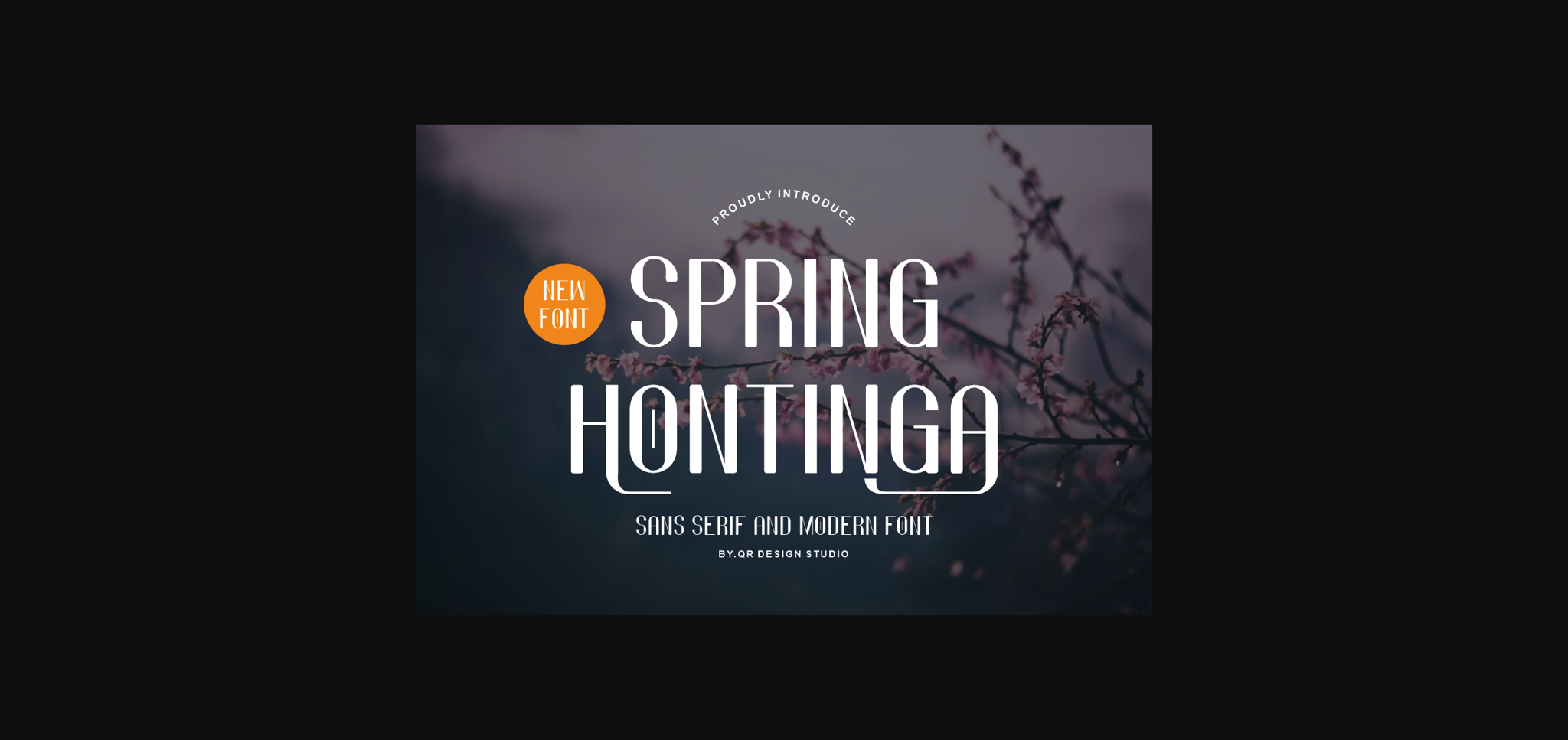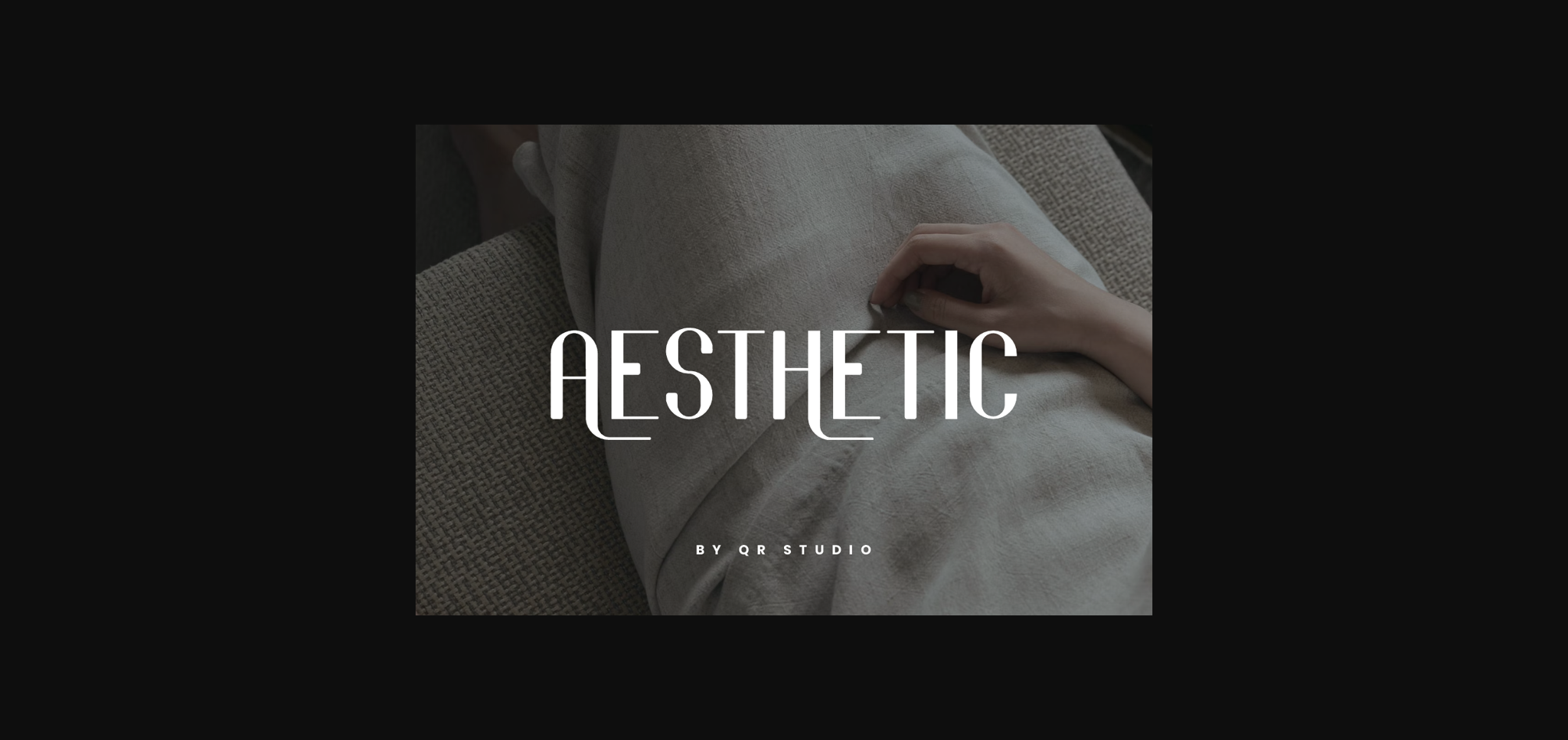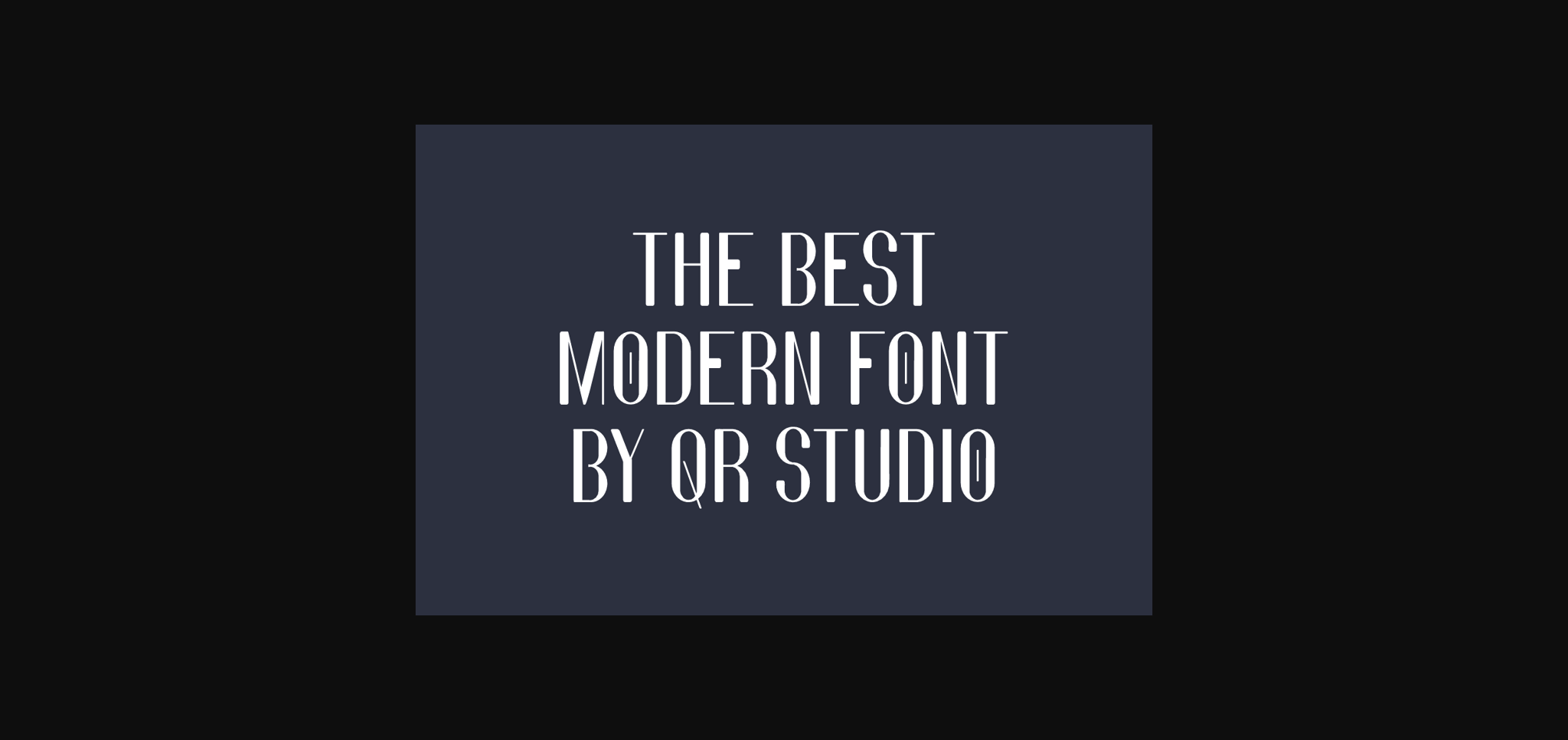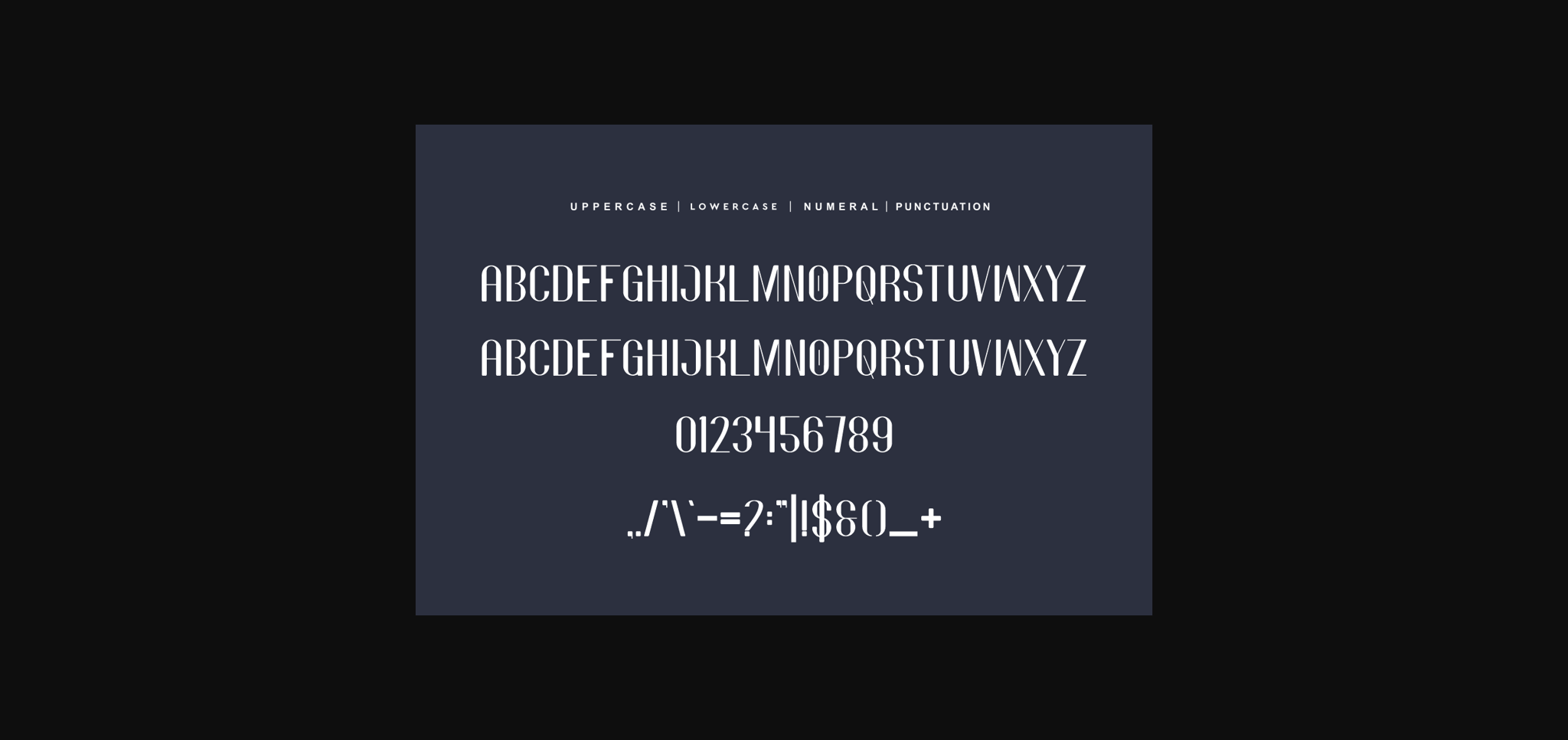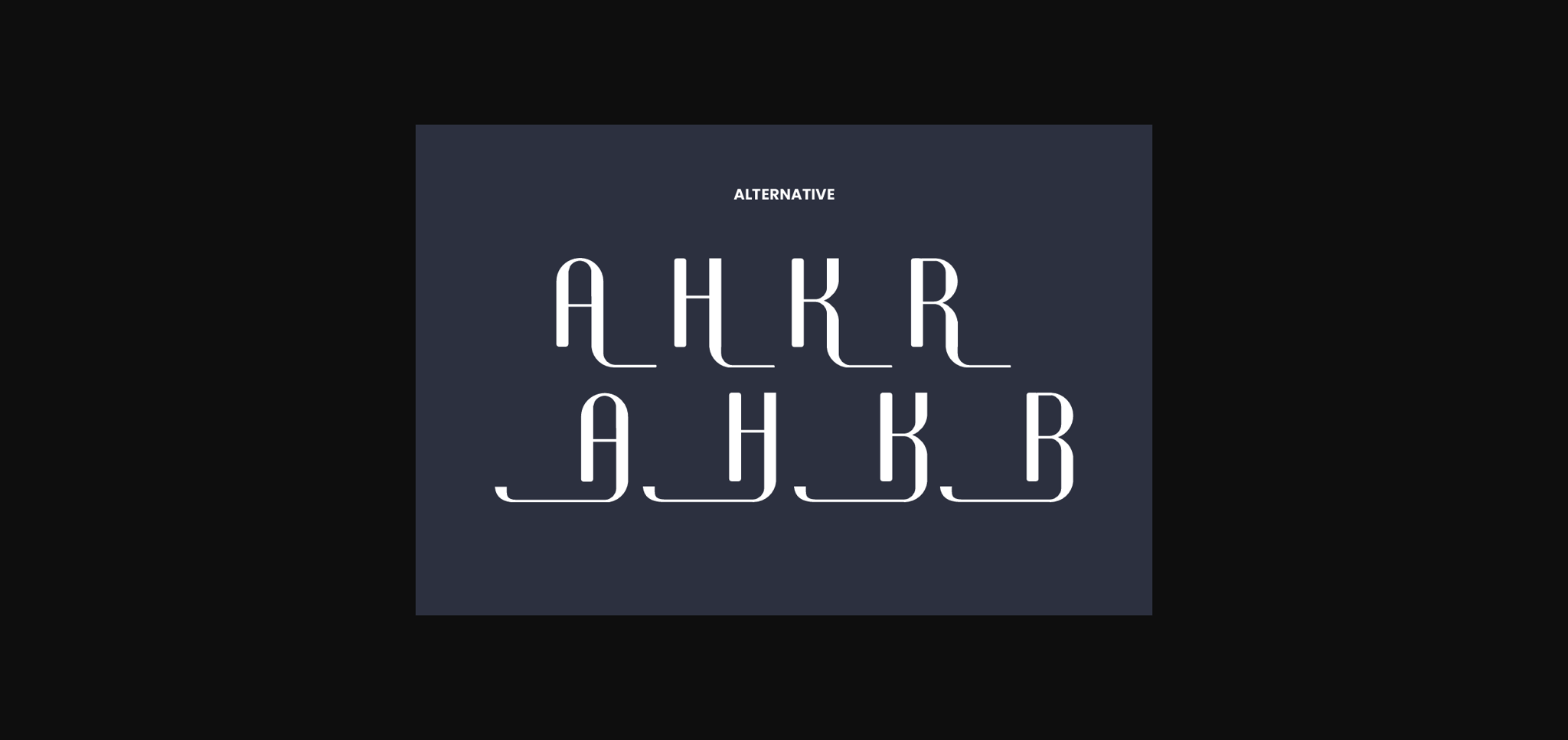
Spring Hontinga Font
About Spring Hontinga Font
Spring Hontinga is an elegant and bold sans serif font. Fall in love with its incredibly versatile style and use it to create gorgeous wedding invitations, beautiful stationary art, eye-catching social media posts, and much more!